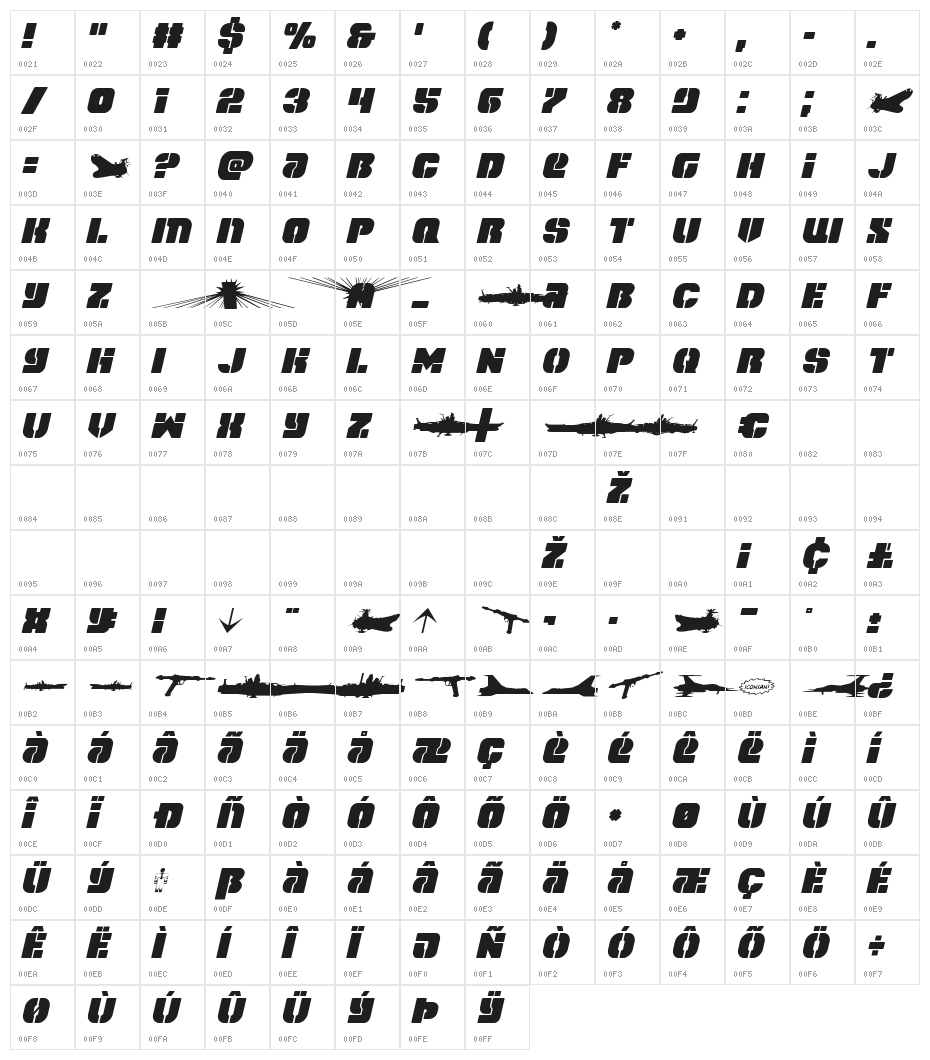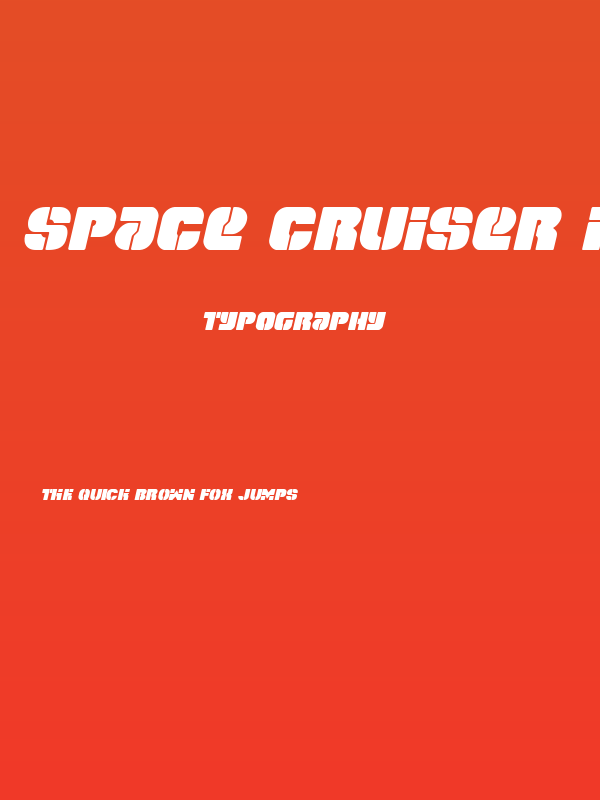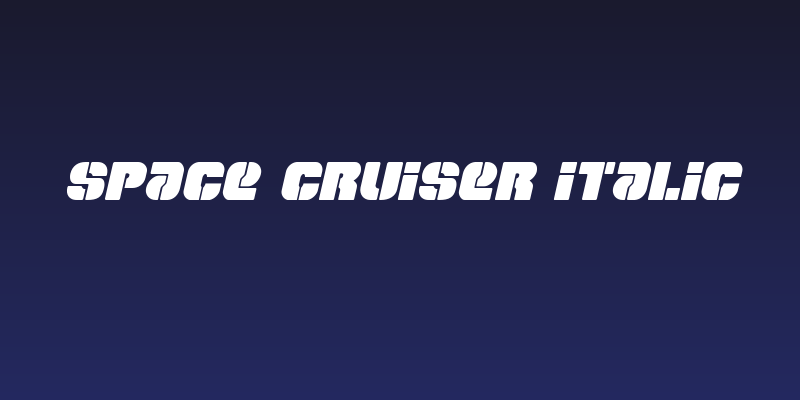
Space Cruiser Italic Font
Space Cruiser Italic Description
This font features a bold and futuristic design, characterized by its thick, blocky letters with a distinct italic slant. The characters are heavily stylized, with sharp angles and a sense of motion, making it ideal for projects that require a dynamic and modern aesthetic. The uppercase and lowercase letters maintain a consistent style, with the numbers and special characters following suit. The font's boldness and unique shape make it stand out, perfect for attention-grabbing headlines or logos. Its design suggests a sense of speed and innovation, suitable for technology or sci-fi themed projects.
| Overall Style | Futuristic, Dynamic |
| Proposed Projects | Ideal for sci-fi themed designs, technology branding, video game titles, and futuristic posters. |